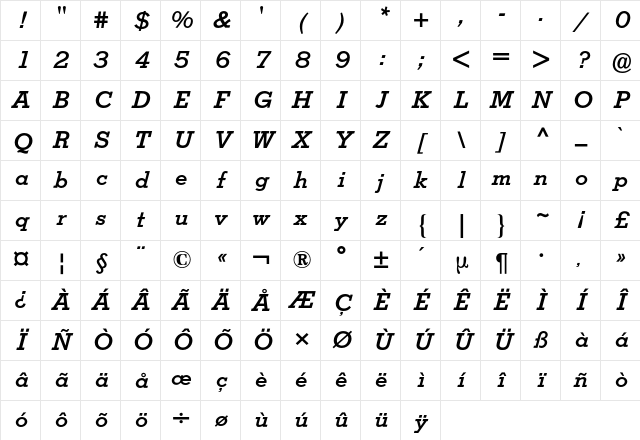
Complete StymieBQ ItalicBold glyph index. Displaying only characters natively supported by StymieBQ ItalicBold font.
StymieBQ is a composed and adaptable typeface that performs quietly and consistently across a wide range of design contexts. The slanted form adds forward momentum and visual energy. Its bold stroke weight gives it real presence on the page.
Pro Tip: Use StymieBQ for emphasis, pull quotes, and subheadings where its slanted energy can add rhythm to the layout.